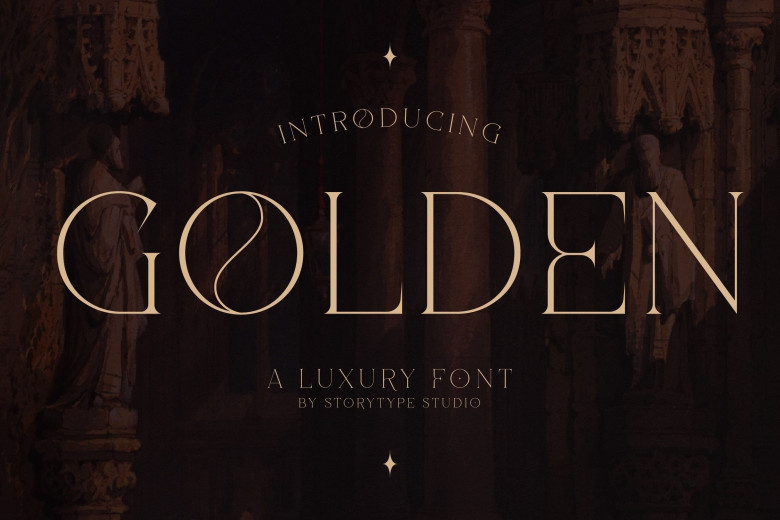
Golden Font
Golden is a serif modern & classic typeface with its own unique style & modern look. This typeface is perfect for an elegant & luxury logo, book or movie title design, fashion brand, magazine, clothes, lettering, quotes, and more. Included with this font:.otf &.ttf. This font is PUA encoded.
Golden Serif Font